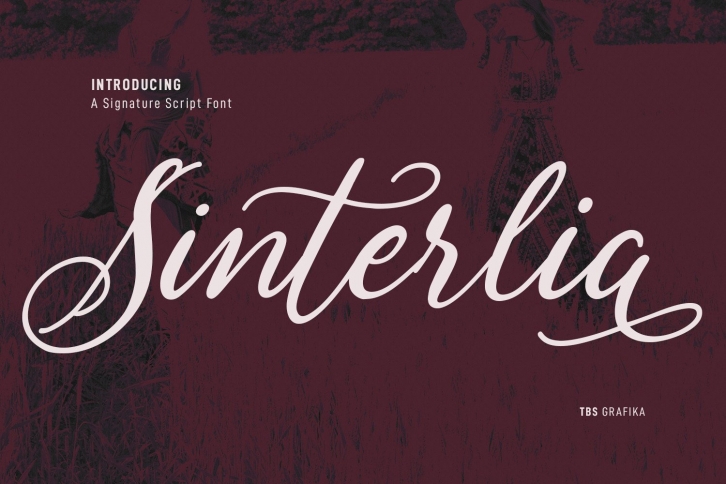
Sinterlia is a fancy handwritten script font. With medium contrast strokes, fun characters with a bit of ligature, and alternates to give you extra creative work. Sinterlia is good for logo design, Social media, Movie Titles, Book Titles, short text, and long text, and good for your secondary text with a sans or serif. Make stunning work with Sinterlia font.